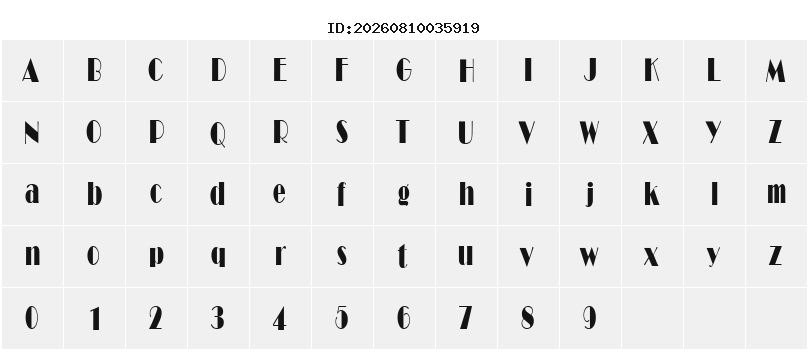
PT Capone Condensed Preview
• Font Name: PT Capone Condensed
• Full Font Name: PT Capone Condensed
About PT Capone Condensed.ttf
PT Capone Condensed.ttf is a modern, elegant sans-serif font designed for ultimate readability and visual harmony. Perfect for branding, headlines, web design, and print materials.